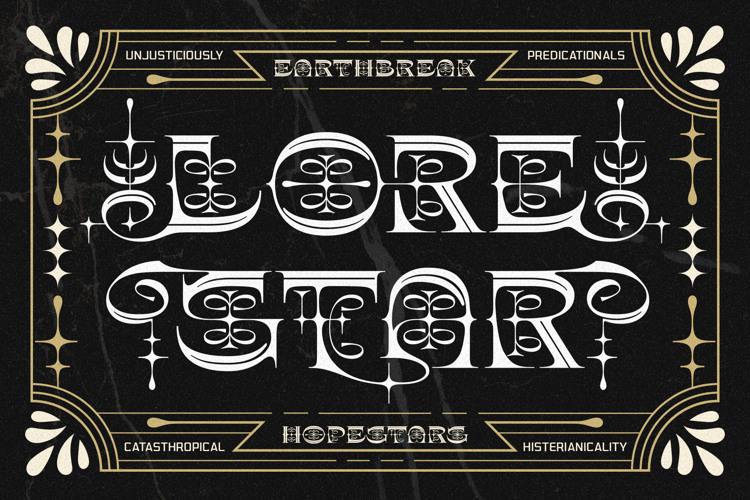
Shinery Loud Font
Step into a world of timeless elegance and bold sophistication with Shinery Loud, a premium Art Deco display typeface masterfully crafted by Alit Design Studio. Inspired by the architectural grandeur, geometric precision, and opulent lifestyle of the roaring 1920s, Shinery Loud marries vintage aesthetic charm with modern typographic needs. As the name suggests, this font doesn't just whisper—it makes a loud, unforgettable statement.
Endless Creative Possibilities: What truly sets Shinery Loud apart is its monumental scale of customization. Packed with an astonishing 1,018 glyphs, this typeface is an absolute powerhouse for designers, branding agencies, and typographers. Whether you are aiming for a clean, minimalist geometric look or highly ornate and decorative lettering, the extensive stylistic sets provide you with all the tools necessary to tailor every single word to perfection.